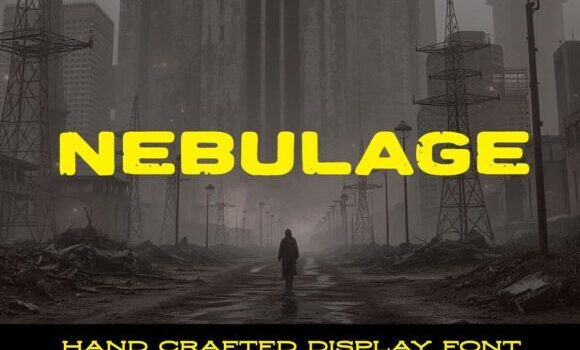
nebulage
Nebulage Font – Free Download Introduction to Nebulage Font Nebulage is a futuristic sci-fi font with a weathered past. 📸 Preview Gallery 2 images 📌 Product Name Nebulage Font 👤 Author stompstock 📂 Category Explore ⬇️ Download Nebulage Font FREE